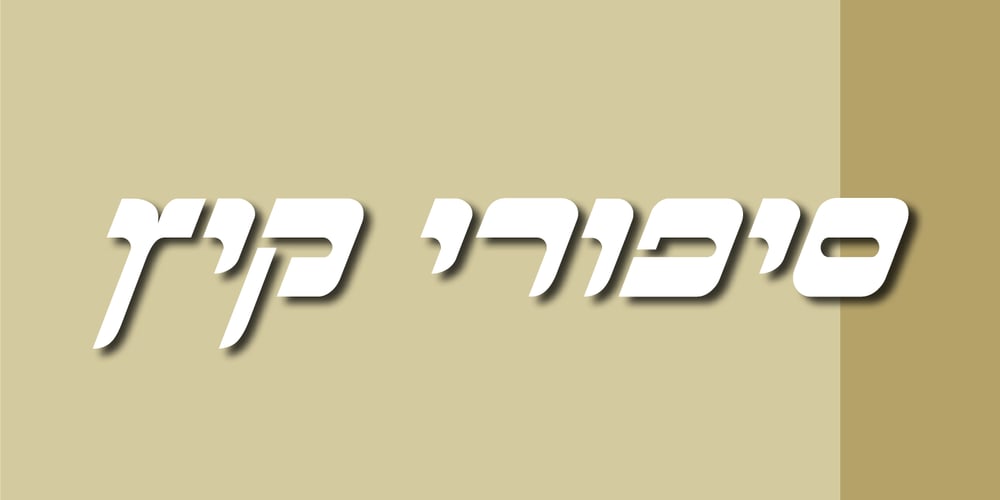
Pirkey Avot MF Font Family was designed by Gad Ulman and published by Masterfont. Pirkey Avot MF contains 1 styles and family package options. Inspired by old Haggada manuscripts, the geometric forms with rounded edges stand out in signage or book jackets – you name it.